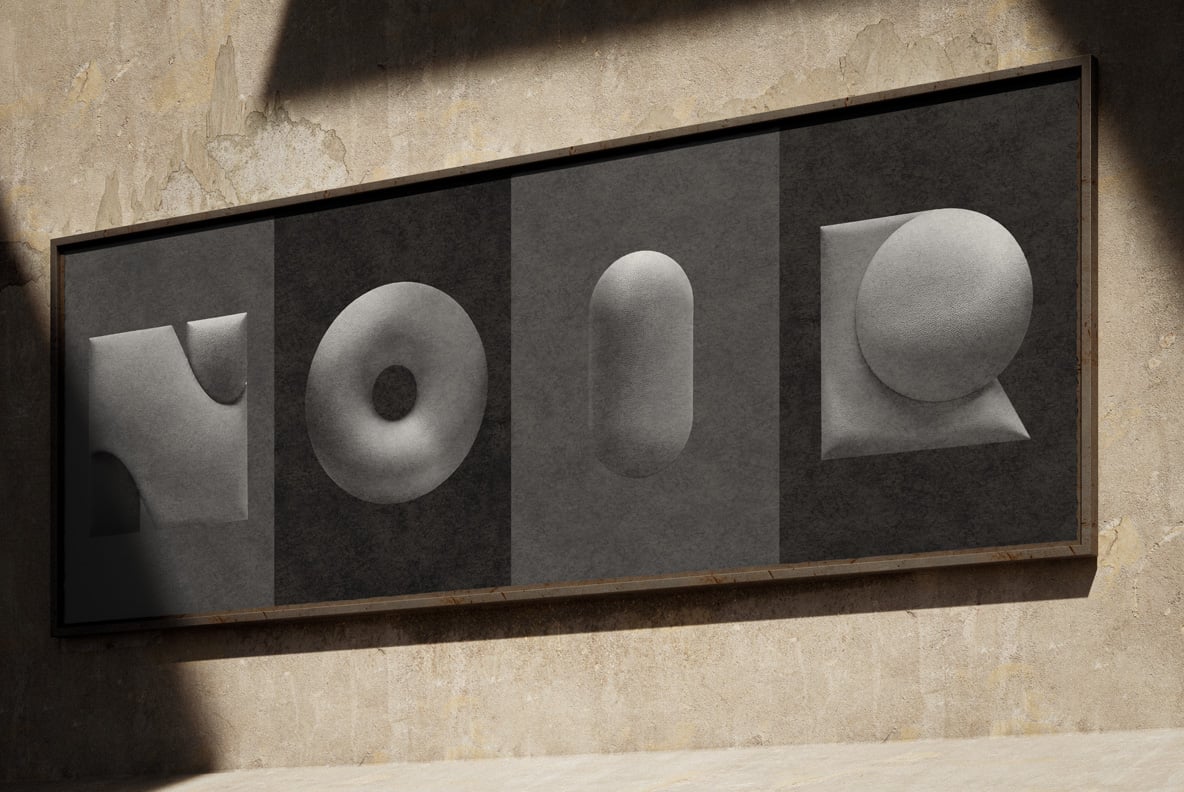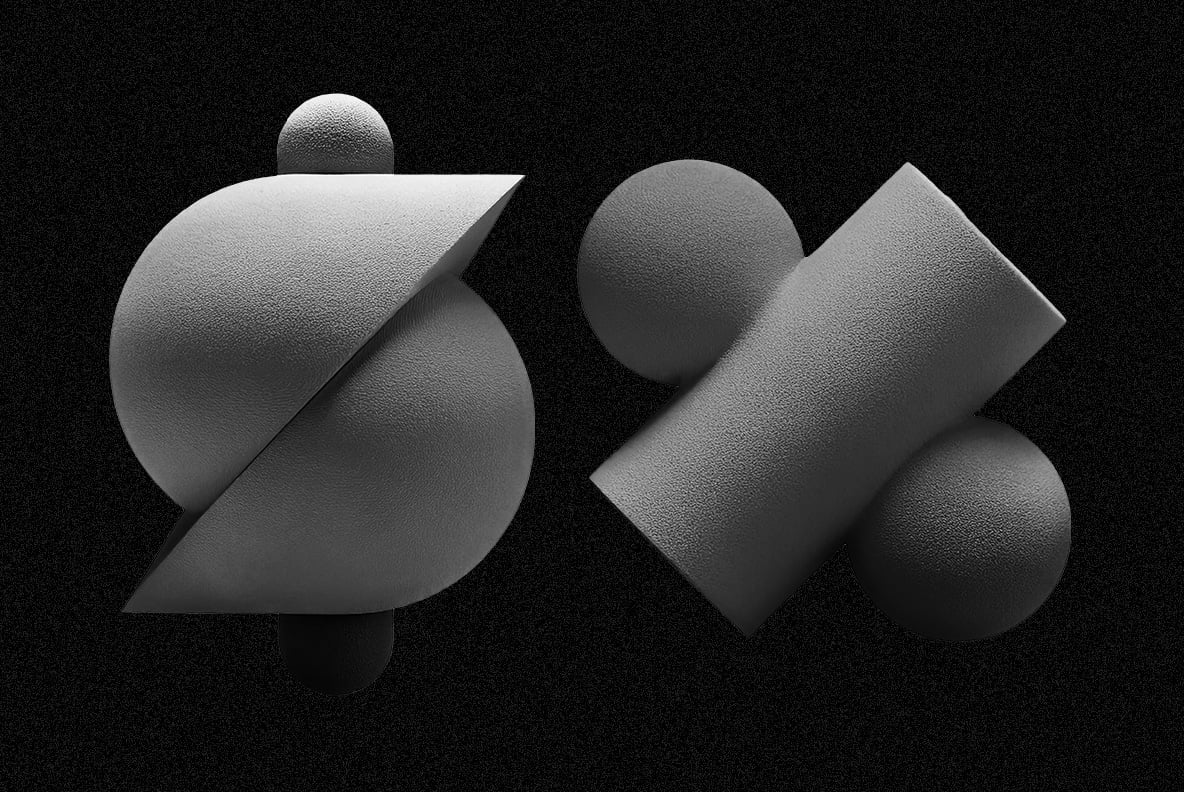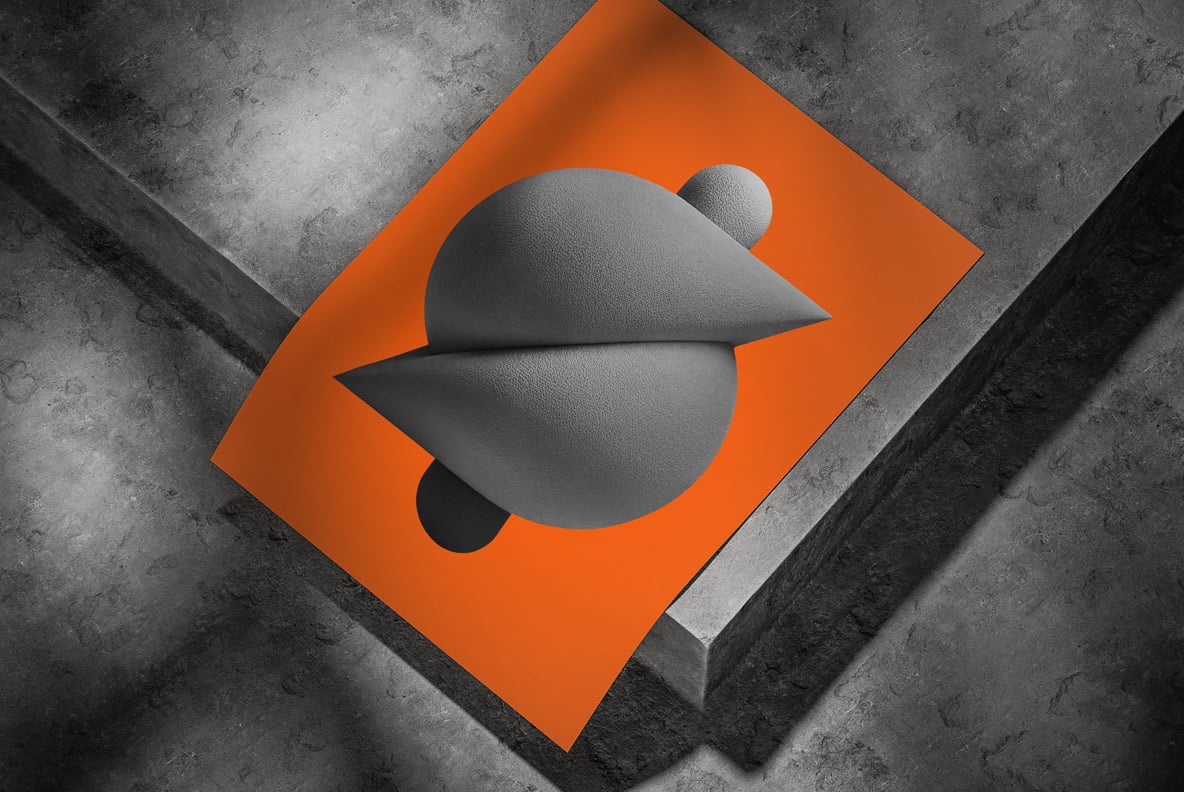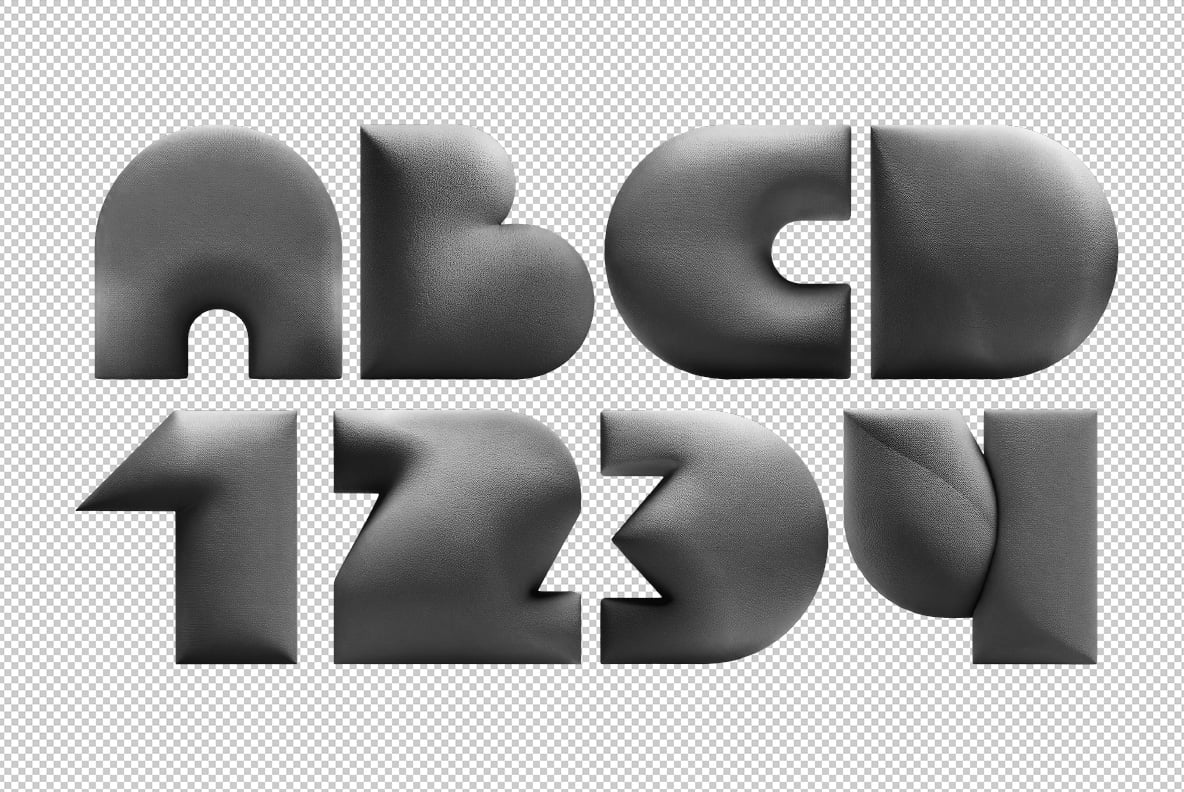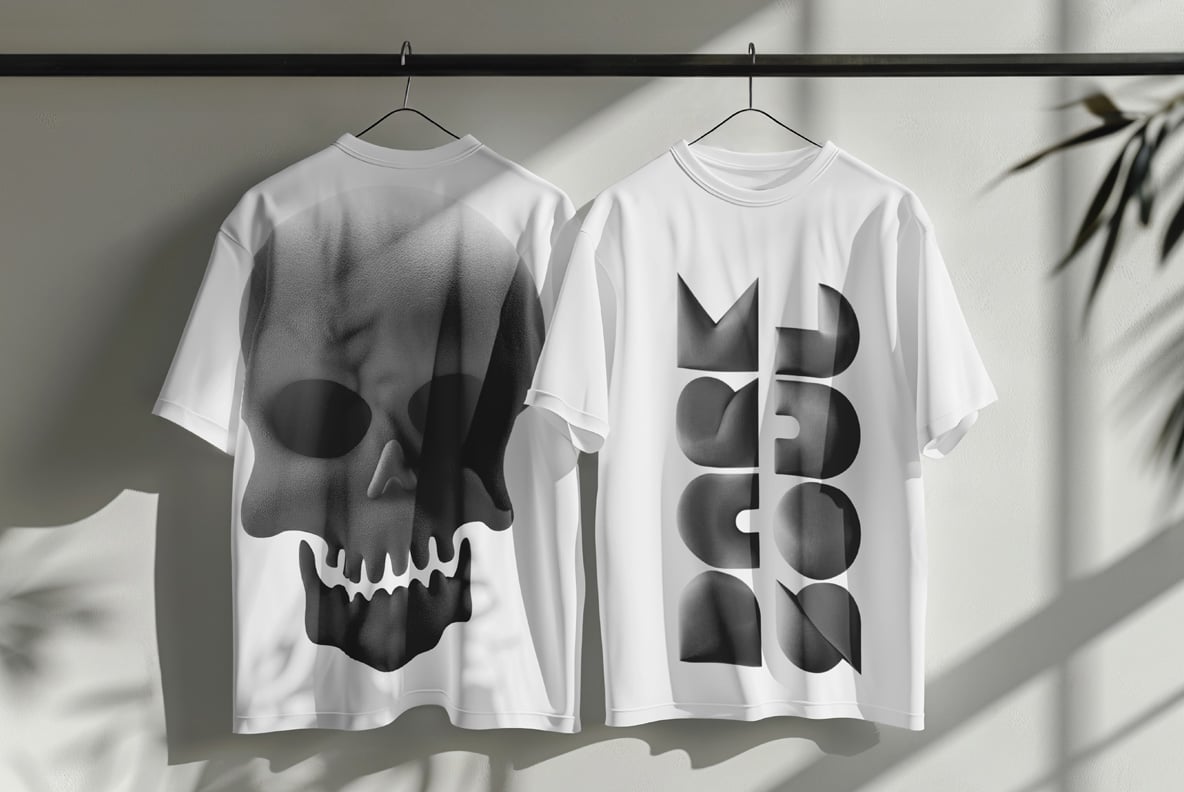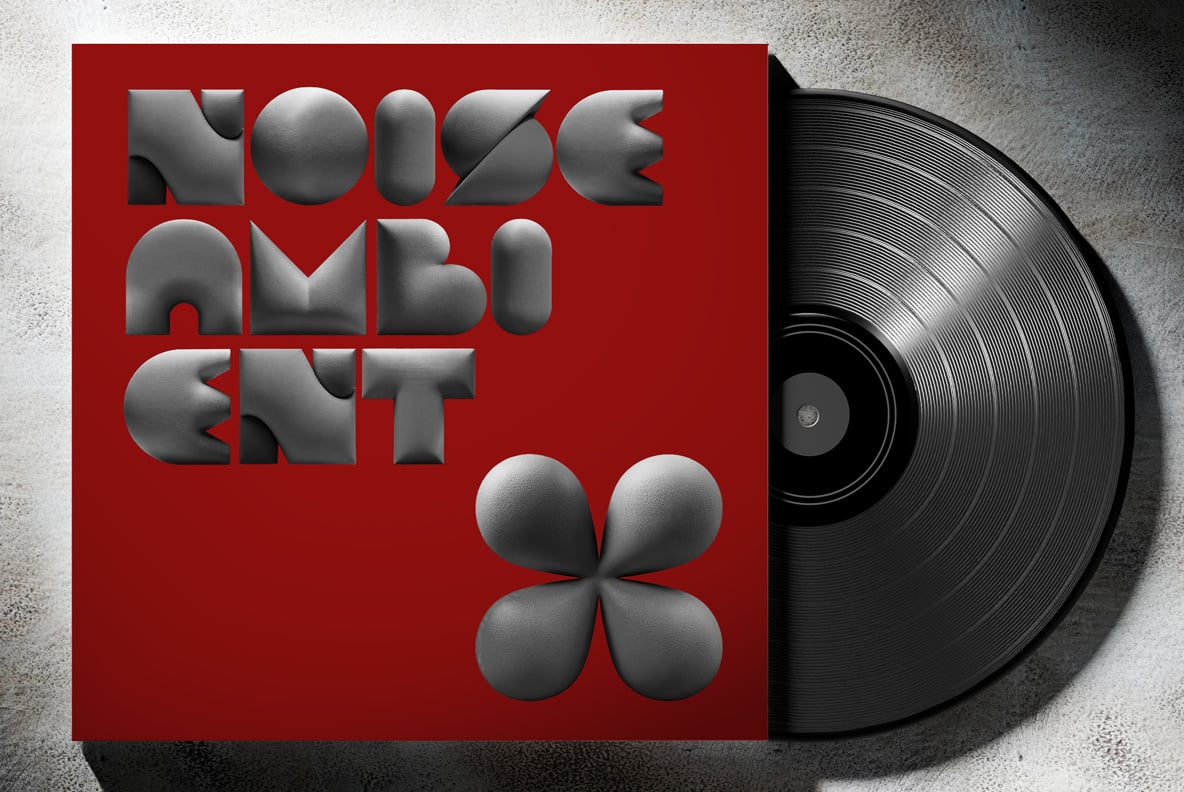
Aerochrome Font
Aerochrome Font is a futuristic playground for typography lovers. Bold, bouncy, and unapologetically funky, this typeface feels like a space-age marshmallow dipped in chrome. With soft bevels, plump forms, and unexpected negative space, it turns every letter into a sculptural object. Perfect for edgy branding, music visuals, fashion, or digital art that dares to be different, Aerochrome doesn’t whisper—it struts, poses, and blasts into the future with a glossy grin. Whether you’re designing posters, album covers, or UI that demands attention, this font is your stylish sidekick from another dimension. Think bold. Think weird. Think Aerochrome.
A high definition OpenType Font. Contains uppercase characters, numerals and basic punctuation. (Draw height roughly 800 pixels). All letters and glyphs that comprises this font you can see on the preview.
Others : ! ? - . ' $ € % & @